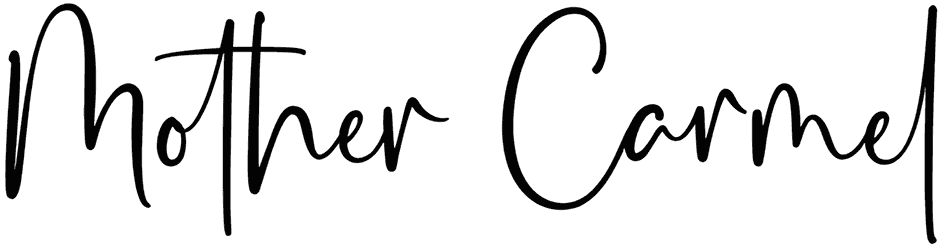
Mother Carmel Font
Designed byRamli Setiadi
Are you looking for a unique font to add to your designs? Mother Carmel may be just what you need. With this handwritten font, you can add something extra to your projects to make them look more personal and exciting.
Although it can be challenging to read, this is also part of the appeal of this script font, which makes it ideal for use on invitations, greeting cards, and wedding cards.